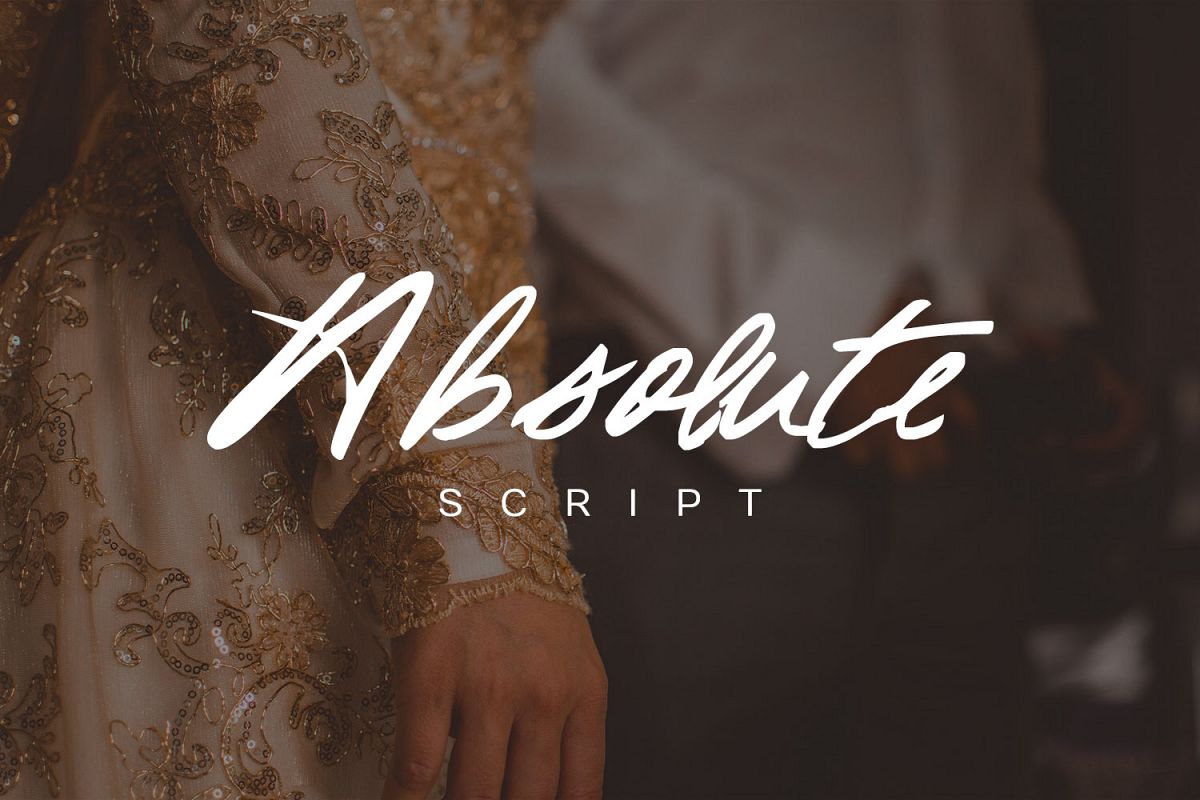
Absolute Script
Absolute Script - A new handmade font. It can be used in all advertising materials, perfect for: branding, business card, packaging, flyer, logo, photos, books, packaging, posters, etc ...